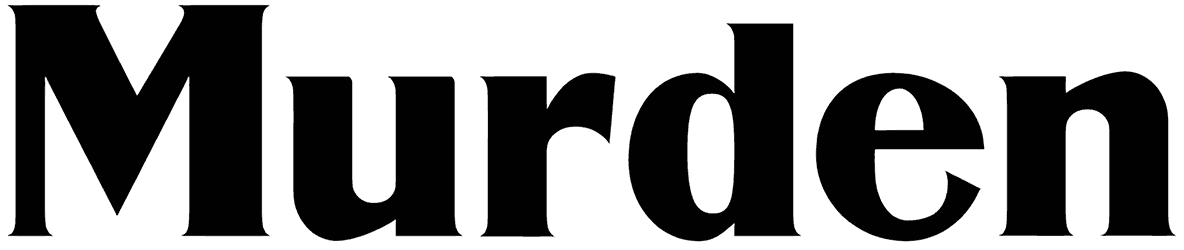
Murden CF Font
Murden CF is a thick, heavy serif font that has bold, trustworthy characters! It’s available in 2 stable and confident styles. Utilize this professional serif font for well-established and classical typography to look stylish.
Murden CF and its full set of letterforms are the best selection for places like branding, fashion, magazines, weddings, and boxes, or wherever you wish to have an outstanding design.
Murden CF is my revival, completely redrawn, of Corbitt, a typeface I found in American Specimen Book of Type Styles (ATF, Jersey City 1912). It was originally designed by Nicholas J. Werner. Murden CF is a heavy serif font suitable for posters, advertising—really anywhere your product, service or cause needs strong orthography to get the information across to your audience. It was originally released with a condensed version; so following this example, I am presenting Murden in two versions as Murden CF ExtraBold, and Murden CF ExtraBold Condensed.